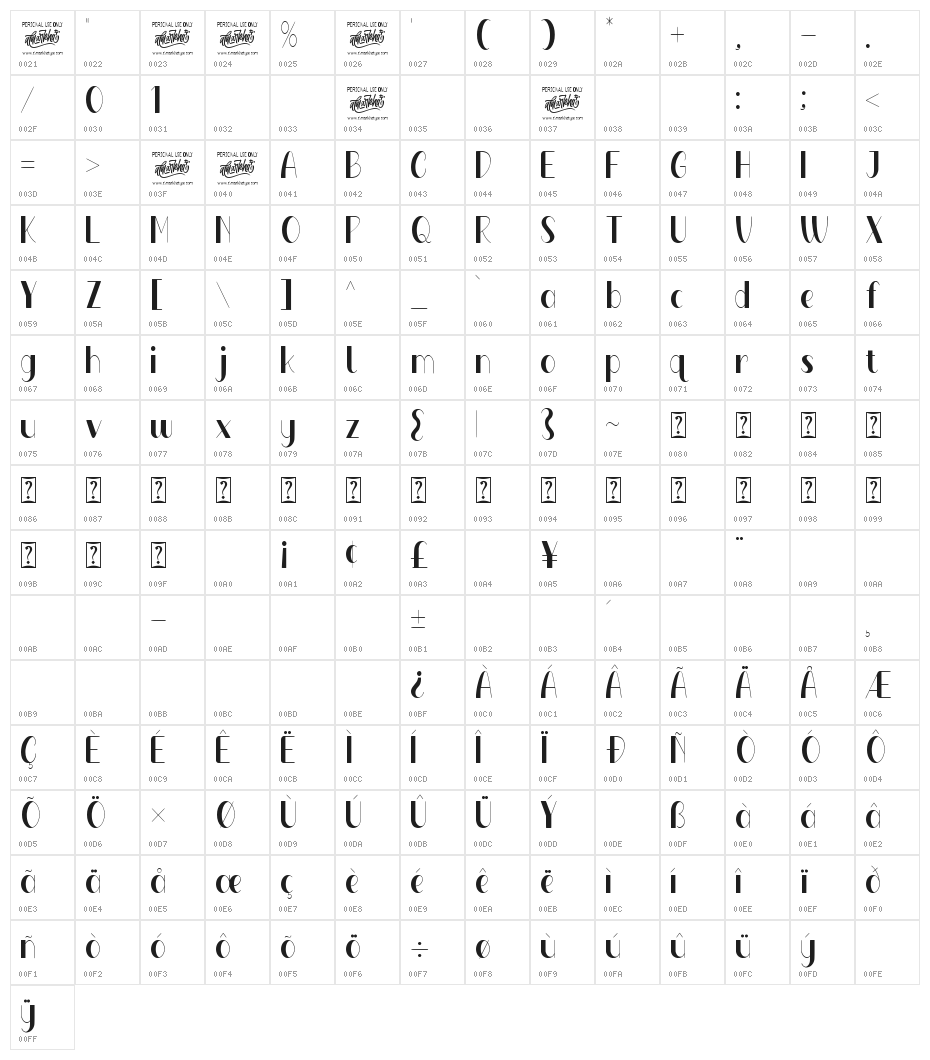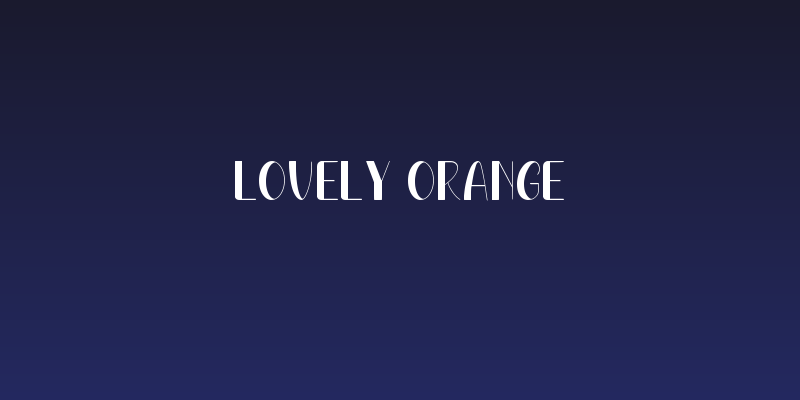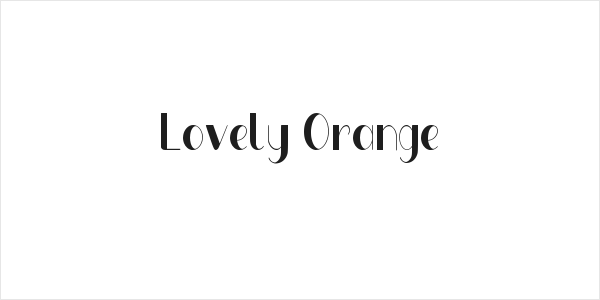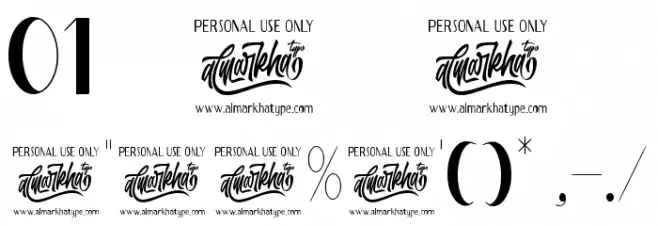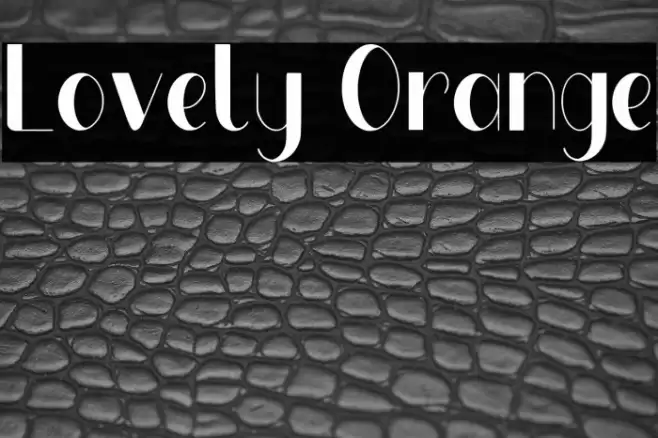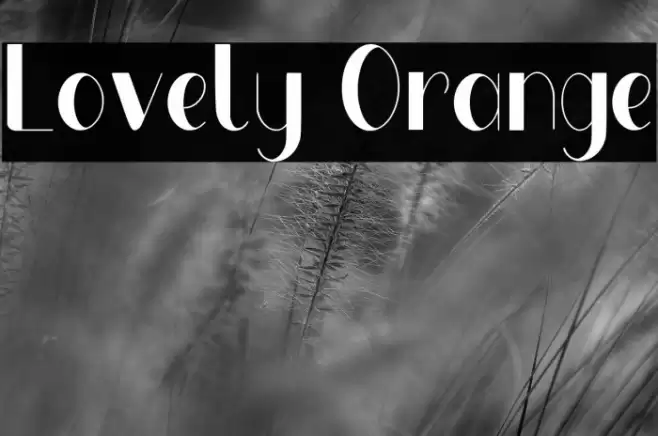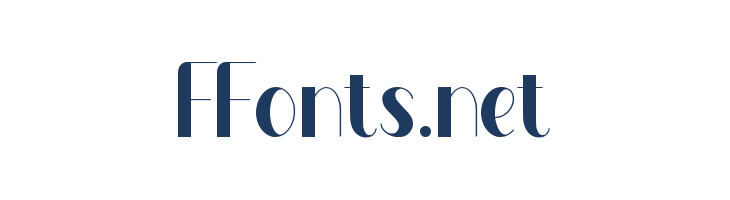
Lovely Orange Font
This font features a unique blend of modern and vintage styles, characterized by its elegant curves and sharp edges. The uppercase letters are bold and striking, with a slight slant that adds a dynamic feel. The lowercase letters maintain a consistent flow, with elongated ascenders and descenders that enhance its sophisticated appearance. The numerals are clean and straightforward, complementing the overall design. Special characters are thoughtfully crafted, maintaining the font's distinctive aesthetic. This typeface is versatile, suitable for various design projects that require a touch of elegance and modernity.
| Overall Style | Modern, Vintage |
| Proposed Projects | Ideal for branding, editorial design, packaging, and invitations where elegance and modernity are desired. |